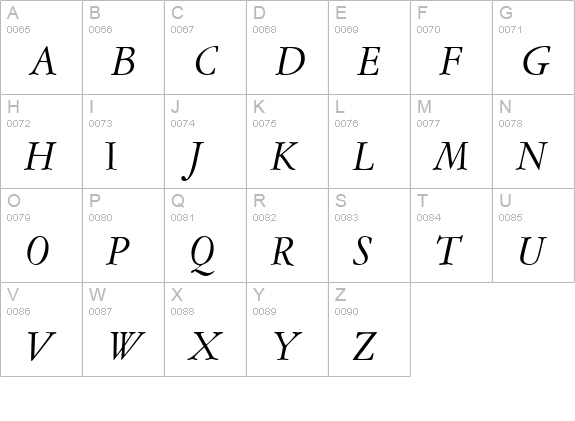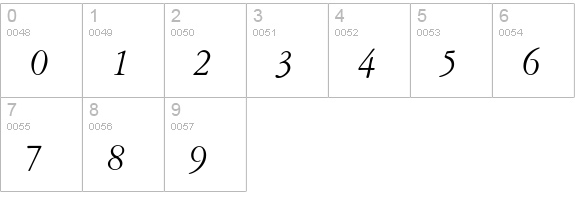
A771-Roman-Italic Font Details
A771-Roman-Italic is a distinctive, italic variant in the A771 typeface family \xE2\x80\x94 well suited to design and typography projects.
A771-Roman-Italic is a stylish and elegant font that exudes sophistication and class. With its classic Roman-inspired design and sleek italicized characters, this font is perfect for adding a touch of refinement to any project. The smooth curves and clean lines of A771-Roman-Italic make it a versatile choice for a wide range of design applications, from branding to editorial design. Best of all, A771-Roman-Italic is available for free download at FontsMarket.com. This means you can easily access this high-quality font without any cost, making it a valuable addition to your font collection. So whether you're working on a project that requires a touch of timeless elegance or simply looking to enhance your design arsenal, A771-Roman-Italic is the perfect choice. Download it today and elevate your designs with this exquisite font.